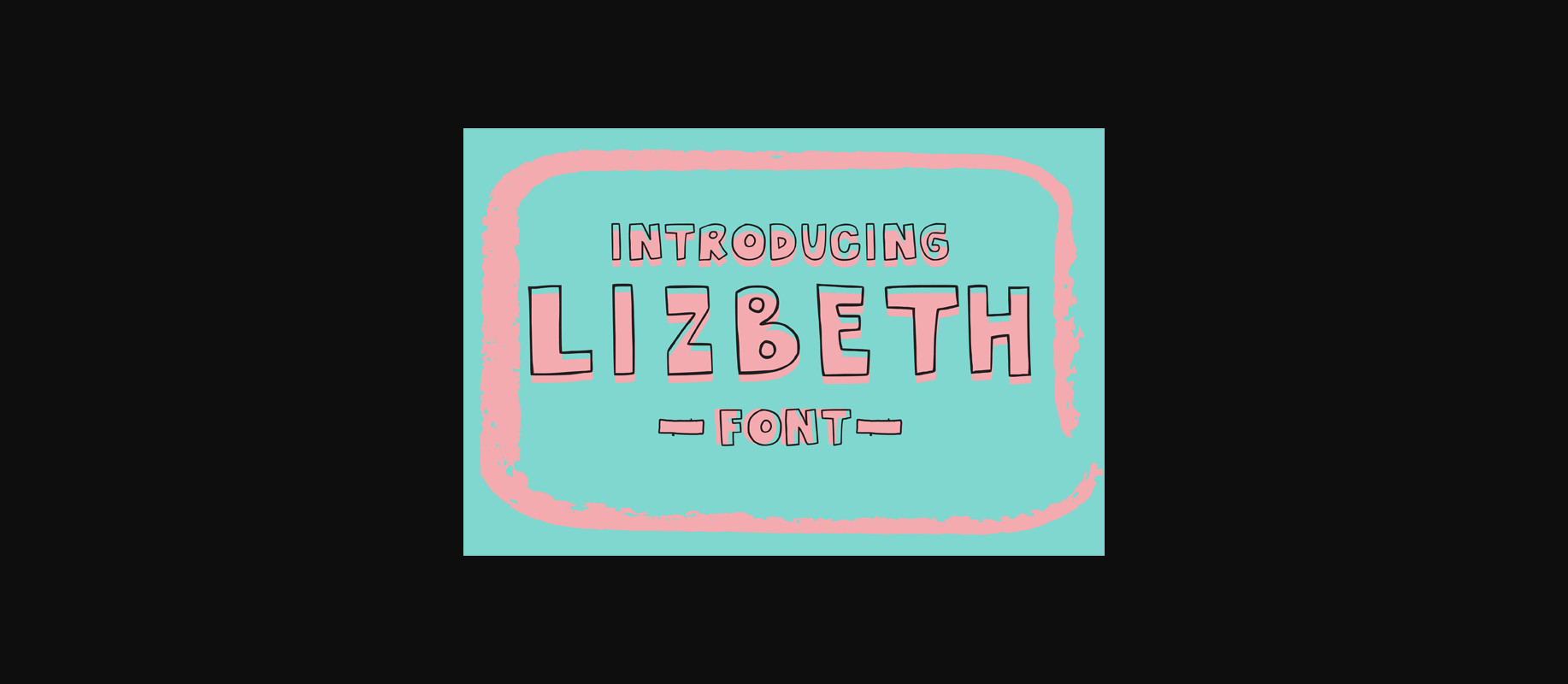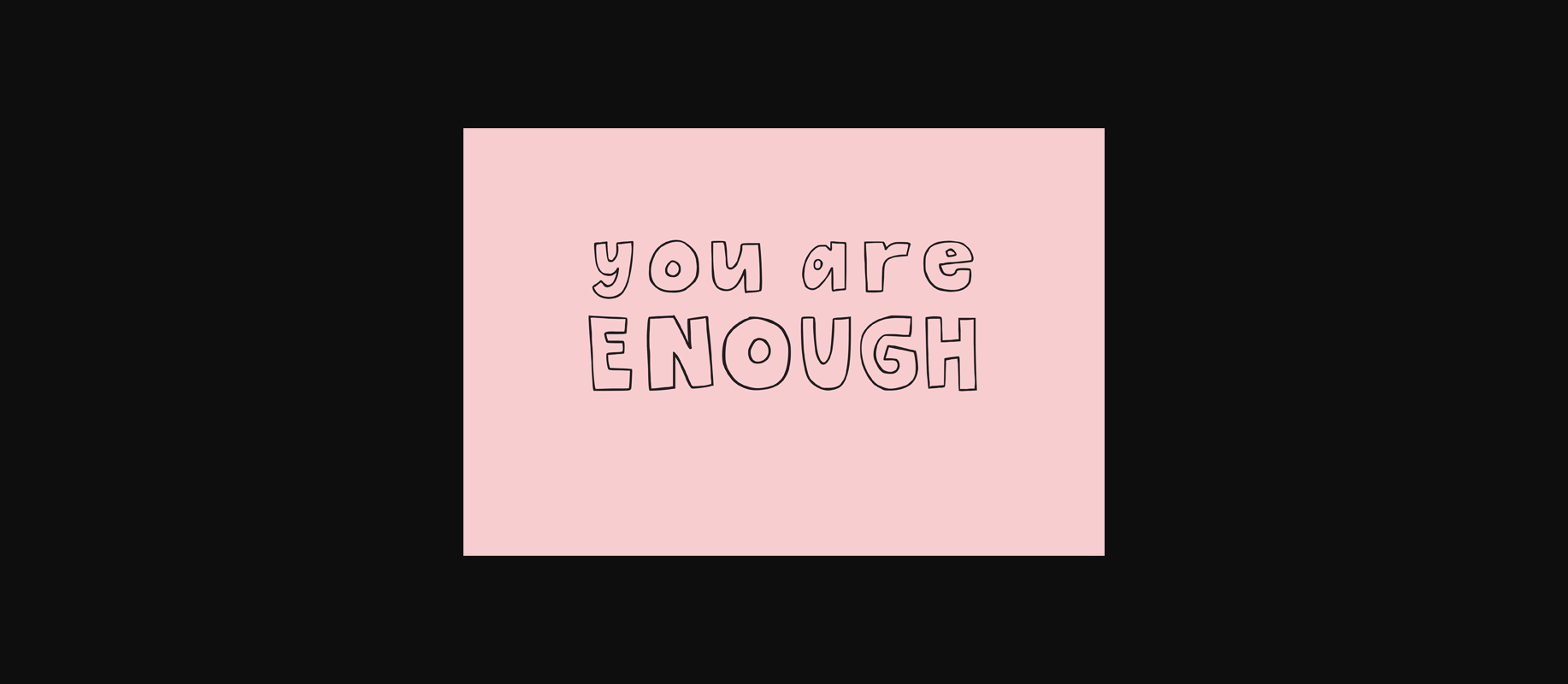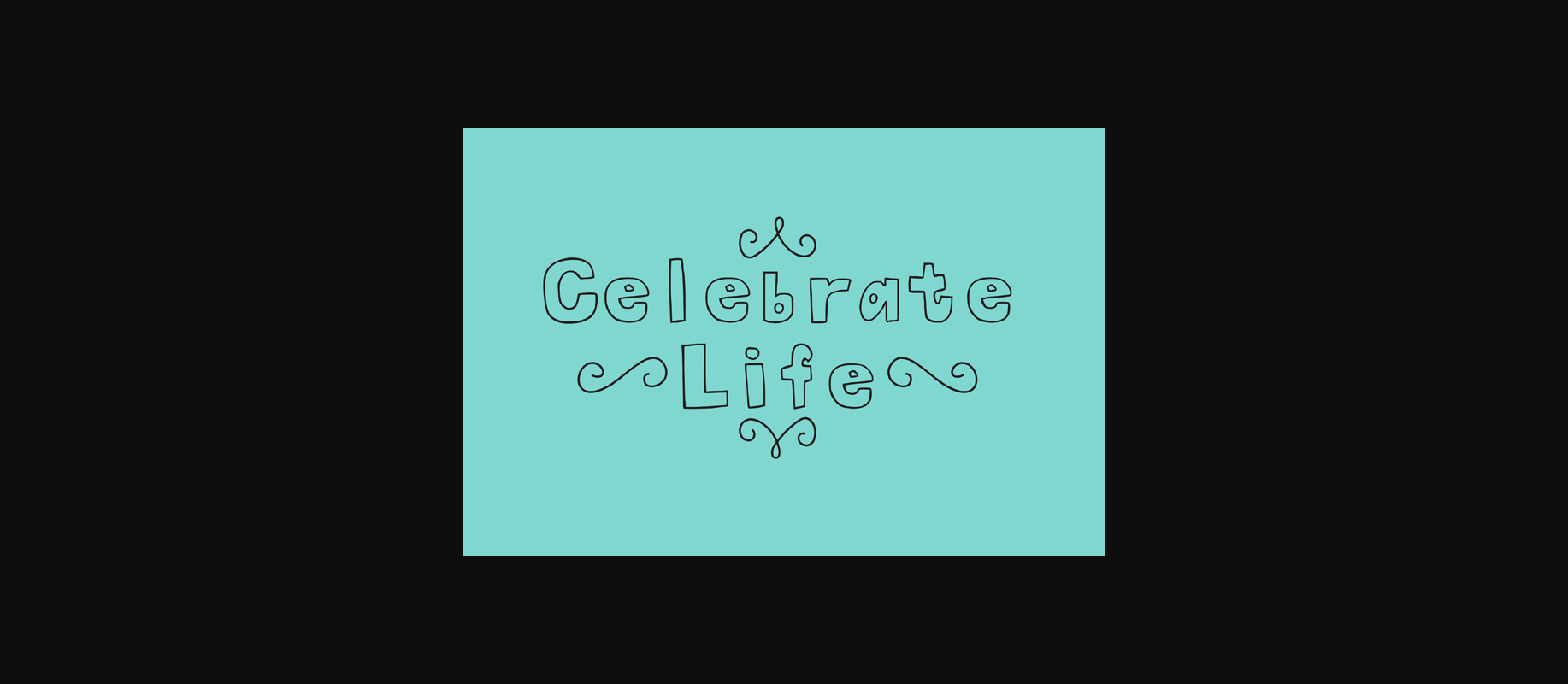
About Lizbeth Font
The Lizbeth is a handcrafted outline font which can be used to create stunning posters, book covers, T Shirts and much more.
Use it alone or pair it with other fonts for great results.